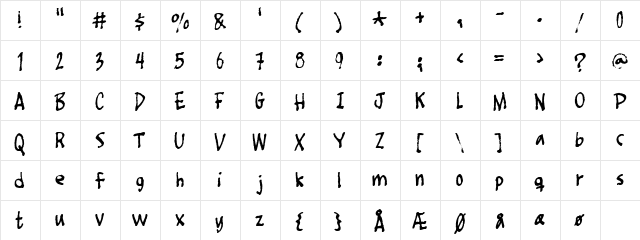
Foot Fight Regular
Design Context for Foot Fight Typeface
Foot Fight is a composed and adaptable typeface that performs quietly and consistently across a wide range of design contexts.